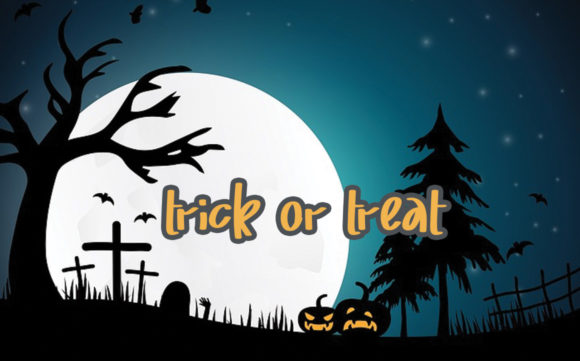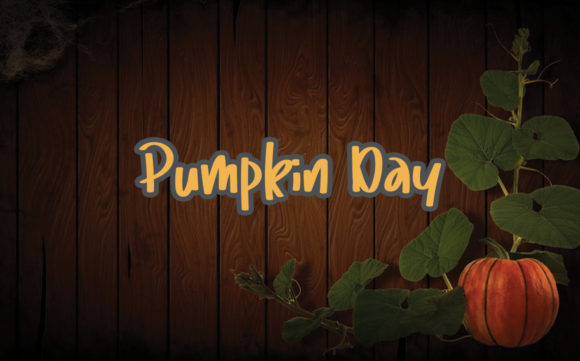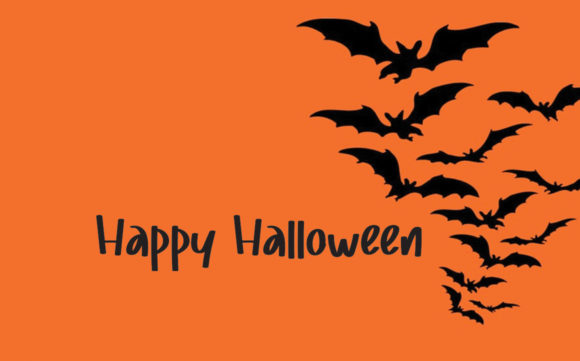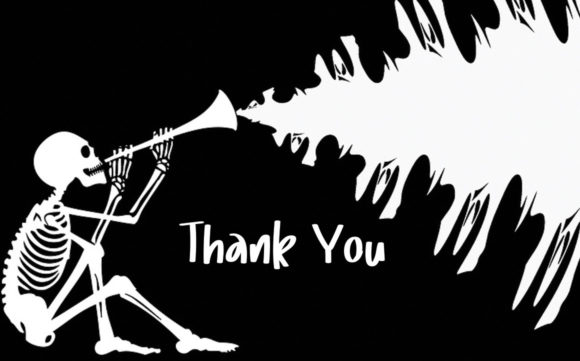
Unleash the Spook: Exploring the Be Scary Font for Your Creative Projects
Are you on the hunt for a font that adds a dash of cool, relaxed, and fun vibes to your designs? Look no further than the Be Scary font, a display font that’s as versatile as it is eye-catching. Whether you’re working on a project for Halloween, a horror-themed campaign, or simply want to inject some personality into your typography, Be Scary is an incredible asset to have in your font library.
The Versatility of Be Scary Font
Be Scary is more than just a spooky font; it’s a creative tool that can elevate any project. Its unique blend of cool and playful elements makes it perfect for a wide range of applications. From crafting attention-grabbing headlines to designing engaging social media posts, Be Scary can add a touch of personality and whimsy to your work.
Key Features of Be Scary Font
- Cool and Relaxed Aesthetic: Be Scary boasts a laid-back vibe that’s perfect for projects that require a bit of edge without being too overwhelming.
- Fun Display Font: Its playful nature makes it ideal for headlines, titles, and short texts where you want to make a statement.
- Versatile Usage: Despite its name, Be Scary is not limited to Halloween or horror themes. It can be used for a variety of projects, from creative crafts to digital marketing materials.
Be Scary font offers several benefits for designers and crafters looking to enhance their projects:
- Ease of Use: Its straightforward and clean design makes it easy to read and work with, even for those who are new to using display fonts.
- Customization Options: Be Scary can be easily customized to fit your project’s color scheme and style, allowing for endless creative possibilities.
- Time-Saving: Having a unique and versatile font like Be Scary in your library can save you time searching for the perfect font for your project.
How to Use Be Scary Font Effectively
To make the most out of Be Scary, consider the following tips:
- Mix and Match: Combine Be Scary with other fonts to create a unique contrast that draws attention.
- Play with Sizes: Use varying font sizes to create a dynamic and engaging visual hierarchy.
- Experiment with Colors: Don’t be afraid to experiment with different colors to match your brand’s aesthetic or project theme.
Be Scary font is a cool, relaxed, and fun display font that can become a valuable addition to your font library. Its versatility, ease of use, and customization options make it an excellent choice for designers and crafters looking to add a touch of personality to their projects. Whether you’re working on a spooky Halloween campaign or just want to elevate your typography, Be Scary is sure to meet your needs and inspire your creativity.
Incorporating Be Scary font into your design projects can open up a world of creative possibilities. Its unique blend of spookiness and playfulness makes it a standout choice for anyone looking to add some character to their work. So why not give Be Scary a try and see how it can transform your designs?